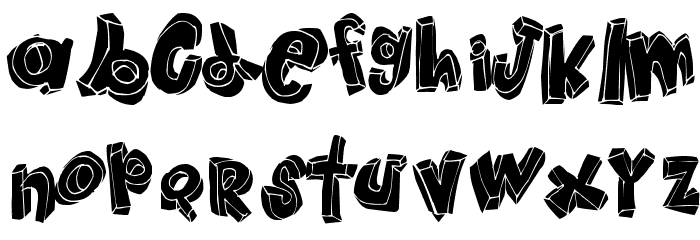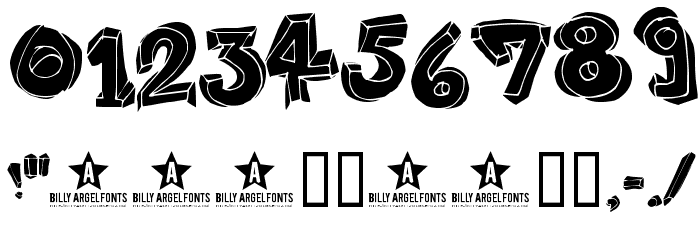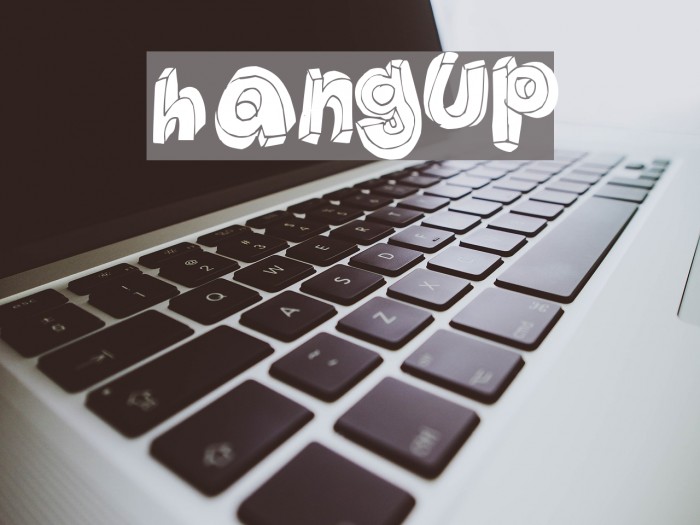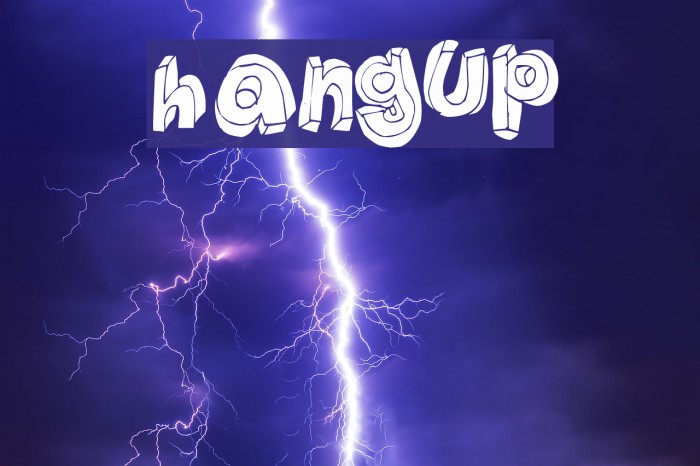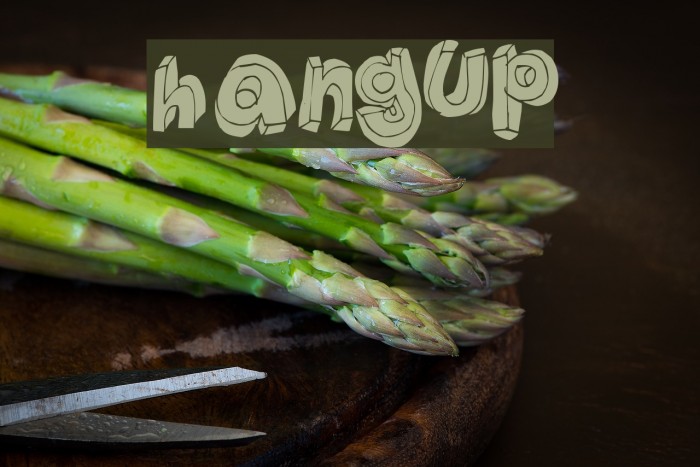
HANGUP Font
This font features a bold and playful design with a three-dimensional effect, giving each character a unique and dynamic appearance. The letters are irregularly shaped, adding a sense of movement and energy. The style is reminiscent of graffiti or street art, with thick strokes and a hand-drawn feel. The uppercase and lowercase letters maintain a consistent style, while the numbers and special characters complement the overall aesthetic. This font is eye-catching and ideal for creative projects that require a fun and informal touch.
A bold, playful font with a 3D graffiti-like style.
- Proposed Projects: Perfect for posters, children's books, comic strips, and branding that requires a lively and informal tone.